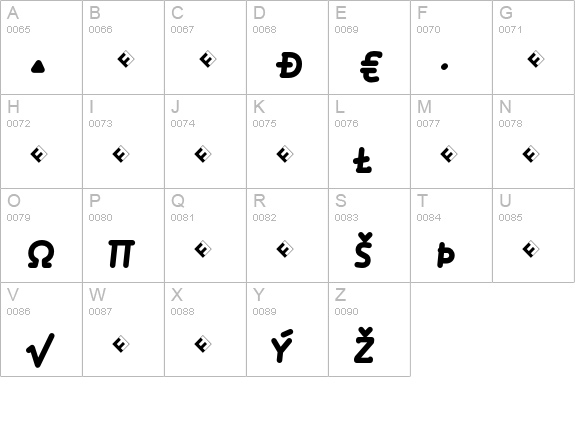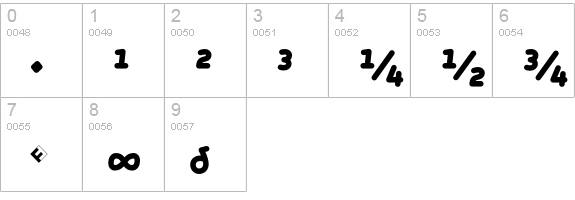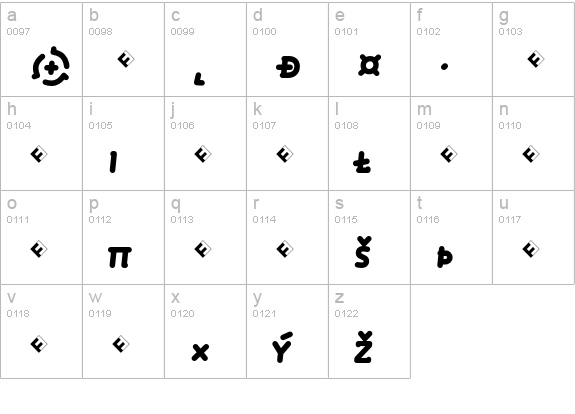
Roice-BlackItalicSCExpert font is a stylish and elegant typeface that exudes sophistication and modernity. Its sleek design and slanted italic style make it perfect for adding a touch of class to any project. The sharp lines and unique curves of this font create a striking visual impact that is sure to captivate the eye. This font is not only visually appealing but also incredibly versatile, making it suitable for a wide range of design projects. Whether you're working on a poster, logo, website, or any other creative endeavor, Roice-BlackItalicSCExpert font will add a touch of elegance and professionalism. The best part? Roice-BlackItalicSCExpert font is available for free download at FontsMarket.com. So, you can easily access this stunning font and elevate your designs without breaking the bank. Don't miss out on the opportunity to enhance your projects with this beautiful typeface. Download Roice-BlackItalicSCExpert font today and take your designs to the next level!